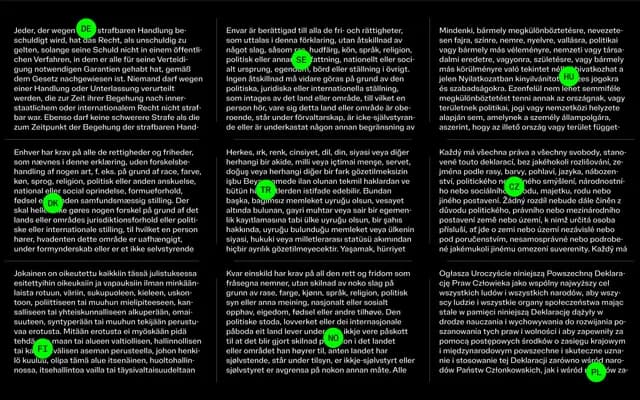
NaN Metrify
NaN · Luke Prowse & J.B Morizot · 2022
A 108-style neo-grotesque available in three distinct flavour variants and six non-Latin scripts, spanning nine widths from Compressed to Gigawide.
Designed by Luke Prowse and J.B Morizot at NaN, Metrify answers the question of what a sans-serif should be in a genuinely transborder context, with dedicated Arabic, Cyrillic, Greek, Hebrew, Thai and Pan-African versions developed alongside script-specific consultants. The family is split into three ABC variants sharing a common skeleton: A is the most detailed and warm, B is stripped back and rational, and C pushes further toward a simplified near-geometric vocabulary. All styles are delivered as variable fonts, with nine widths running from Compressed to Gigawide across six weights and matching italics.
NaN explicitly position Metrify within the Neo-Grotesque genre, drawing on Swiss International Style precedents while extending the form across nine widths and three distinct flavour variants. The family sits squarely in the neo-grotesque category but questions its constraints.